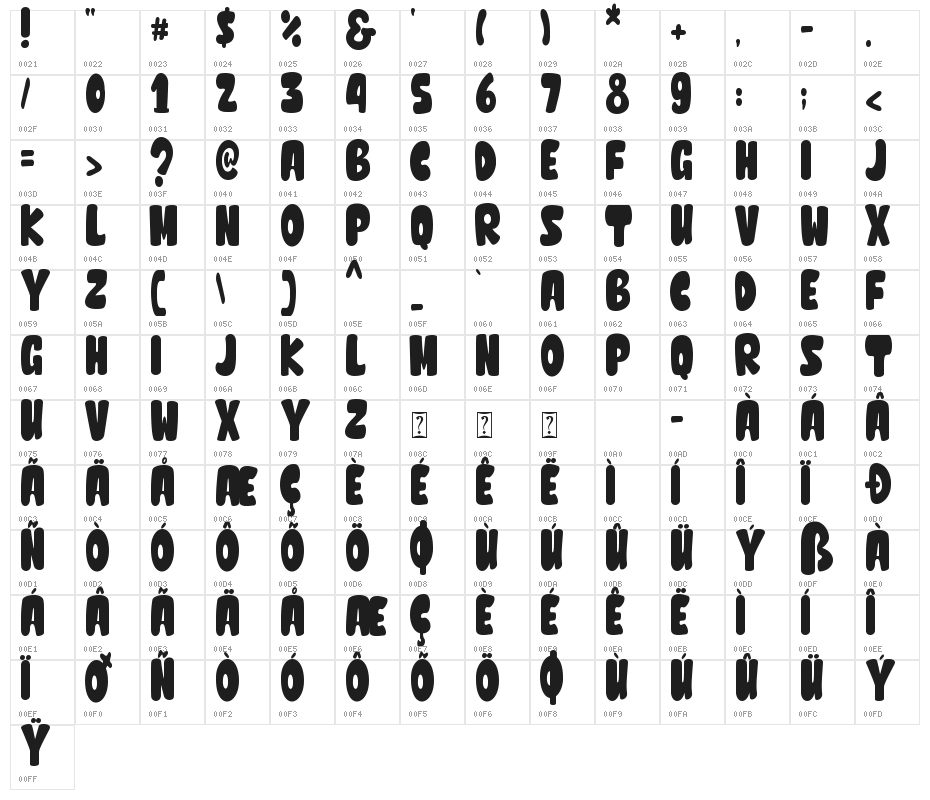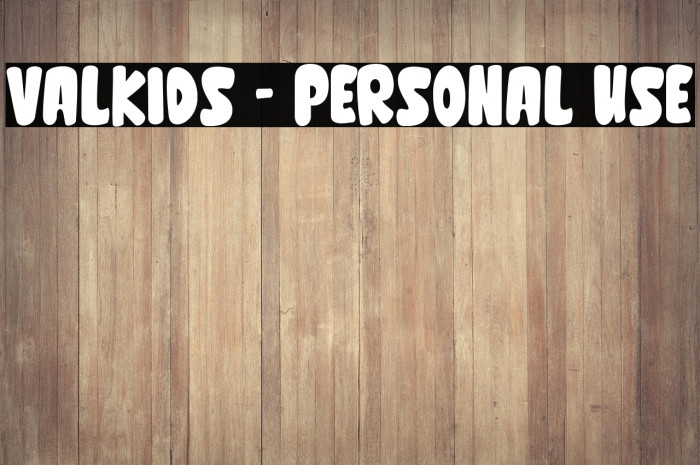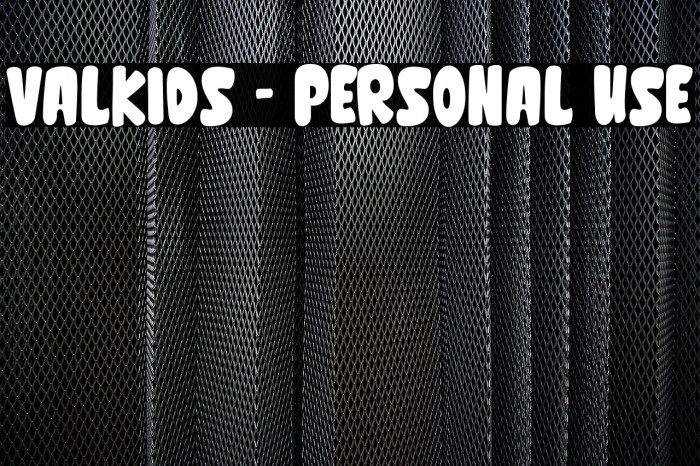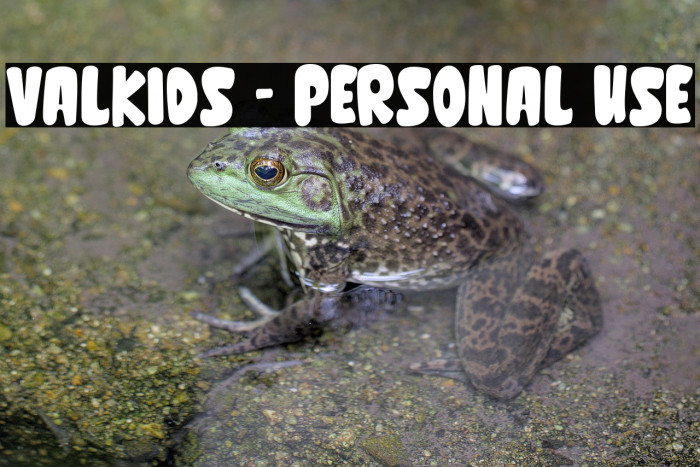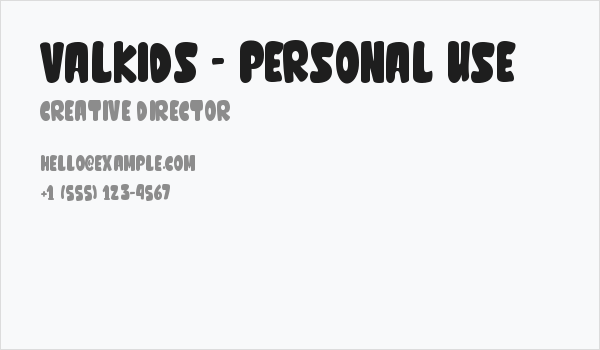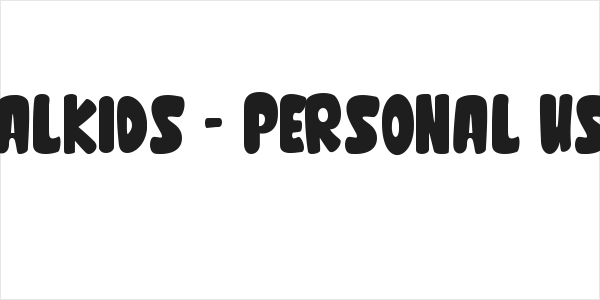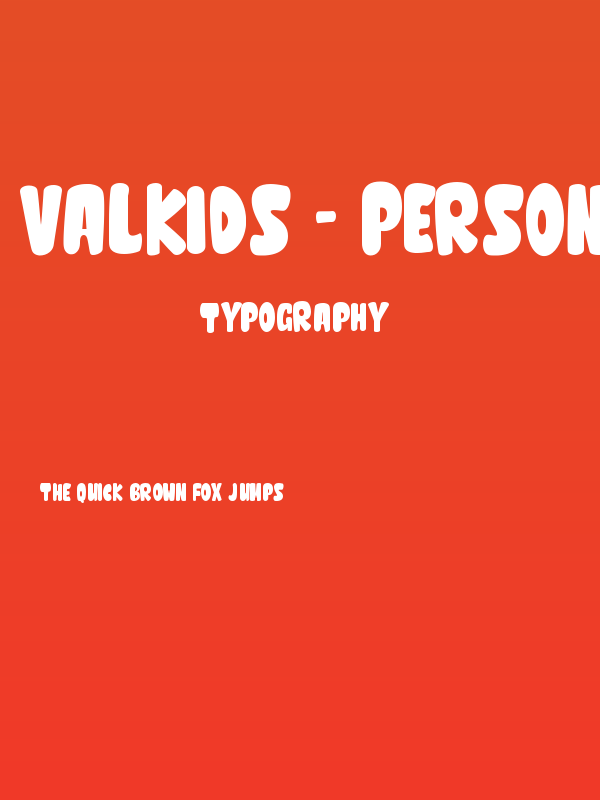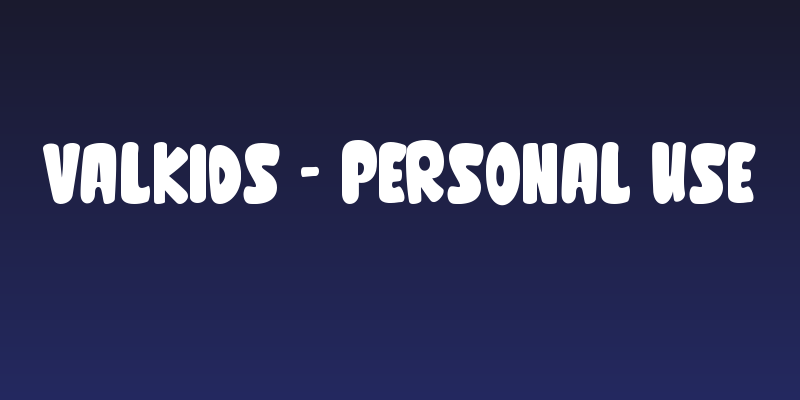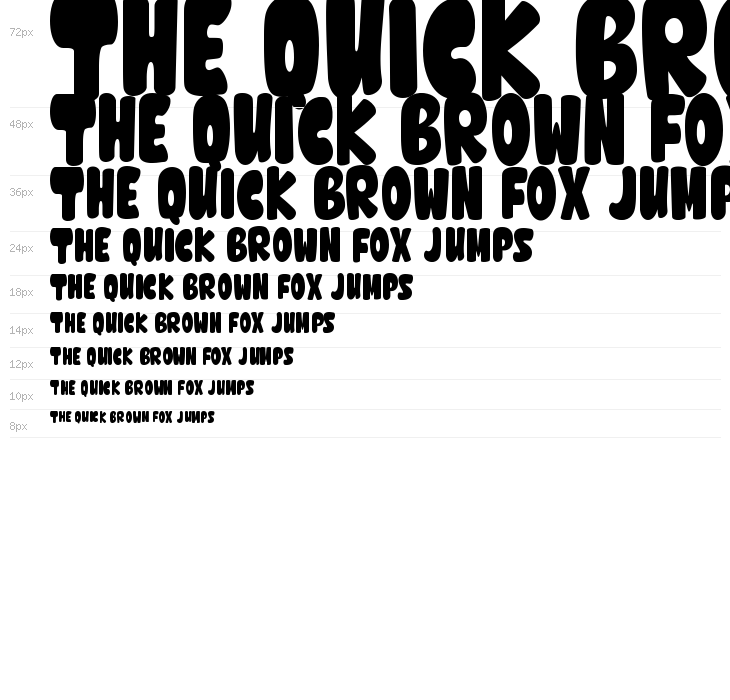
Valkids - Personal use Font
Valkids - Personal use Description
This font features a bold, playful style with rounded edges and a thick, substantial appearance. Each character is designed with a sense of whimsy, making it ideal for projects that require a fun and engaging look. The letters are uniformly bold, with a consistent thickness throughout, giving the font a cohesive and harmonious feel. The numbers and special characters maintain the same playful aesthetic, ensuring that the font can be used comprehensively across various applications. Its boldness and unique style make it stand out, capturing attention while maintaining readability.
| Overall Style | Playful, Fun, Whimsical |
| Use Case | Headlines, Posters, Branding |
| Proposed Projects | Ideal for children's books, playful branding, posters, and creative projects that require a fun and engaging typeface. |